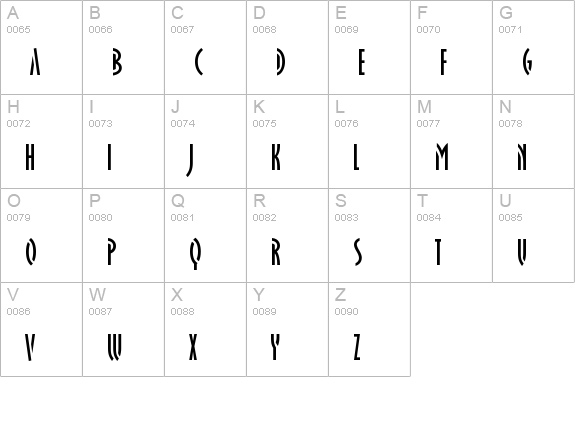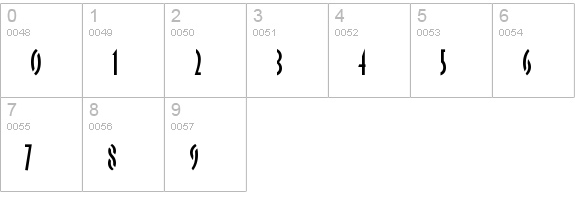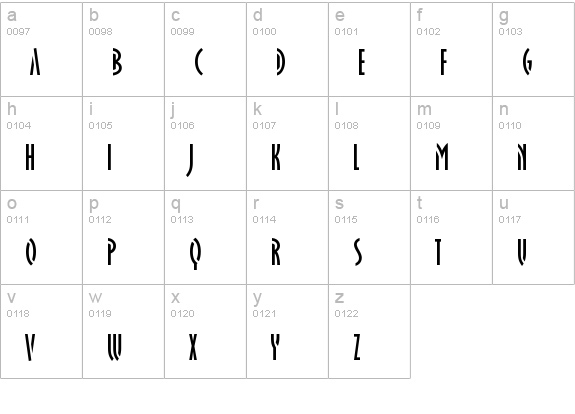
OklahomaSoft-Stencil Font Details
OklahomaSoft-Stencil font is a sleek and modern typeface that exudes sophistication and versatility. With its clean lines and sharp edges, this font is perfect for a wide range of design projects, from branding to editorial design. The stencil style adds a unique touch to any design, making it stand out from the crowd. The best part about OklahomaSoft-Stencil font is that it is completely free to download at FontsMarket.com. This means you can easily access this stylish font and incorporate it into your projects without any cost. Whether you're a professional designer or a hobbyist, this font is a valuable addition to your font library. Don't miss out on the opportunity to enhance your designs with the OklahomaSoft-Stencil font. Download it for free today and take your projects to the next level!